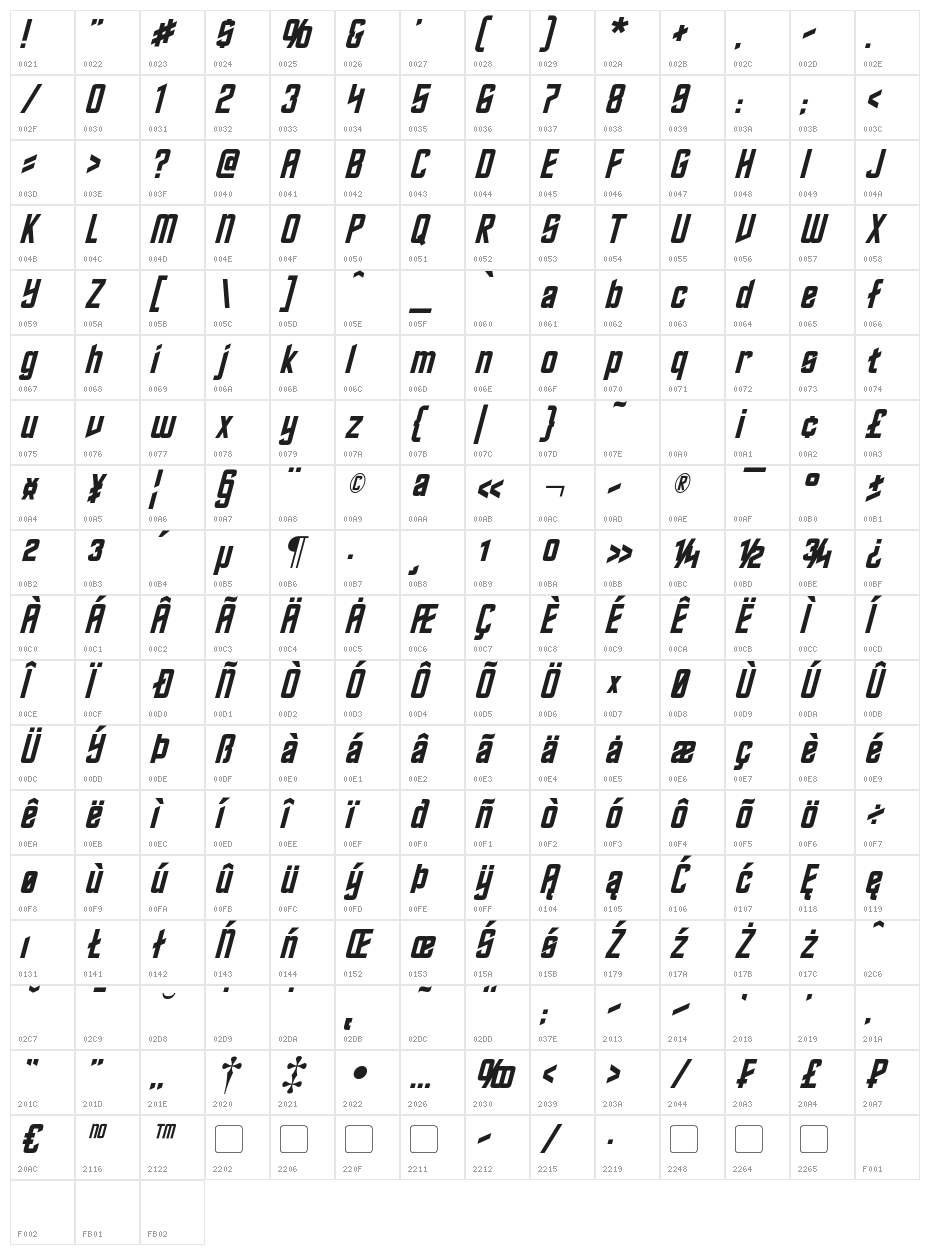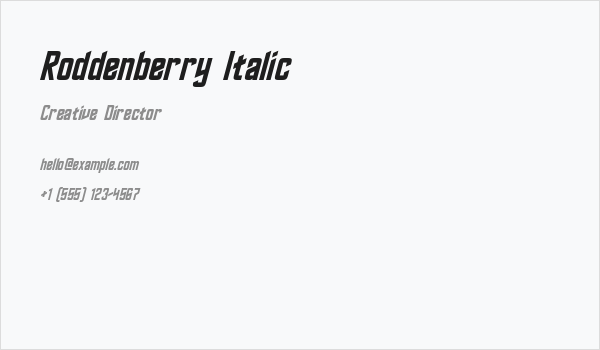
Roddenberry Italic Font
Roddenberry Italic Description
This font features a dynamic and futuristic design with a strong italic slant, giving it a sense of motion and speed. The characters are bold and angular, with sharp edges and a consistent stroke width that conveys a modern and technological aesthetic. The uppercase letters are tall and narrow, while the lowercase letters maintain a similar style, ensuring readability and uniformity. The numerals and special characters are designed to match the overall style, making them suitable for a variety of applications. This font's unique style is ideal for projects that require a bold and forward-thinking appearance.
| Proposed Projects | Ideal for sci-fi themed designs, technology branding, video game titles, and dynamic posters. |